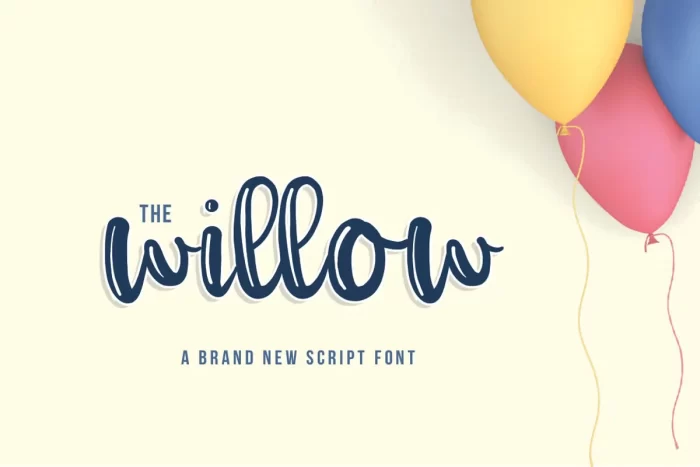
Willow Script Font
The Willow Script is a brand new thick curly script font, including a transparent shadow within each character. As well as a range of alternate characters and ligatures, that are 100% accessible to all. Available for both personal and commercial use. No extended license is required. Download and use The Willow Script for anything and everything.